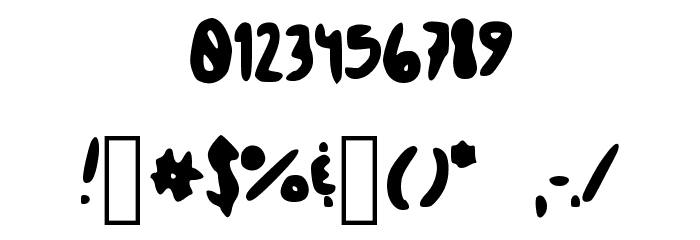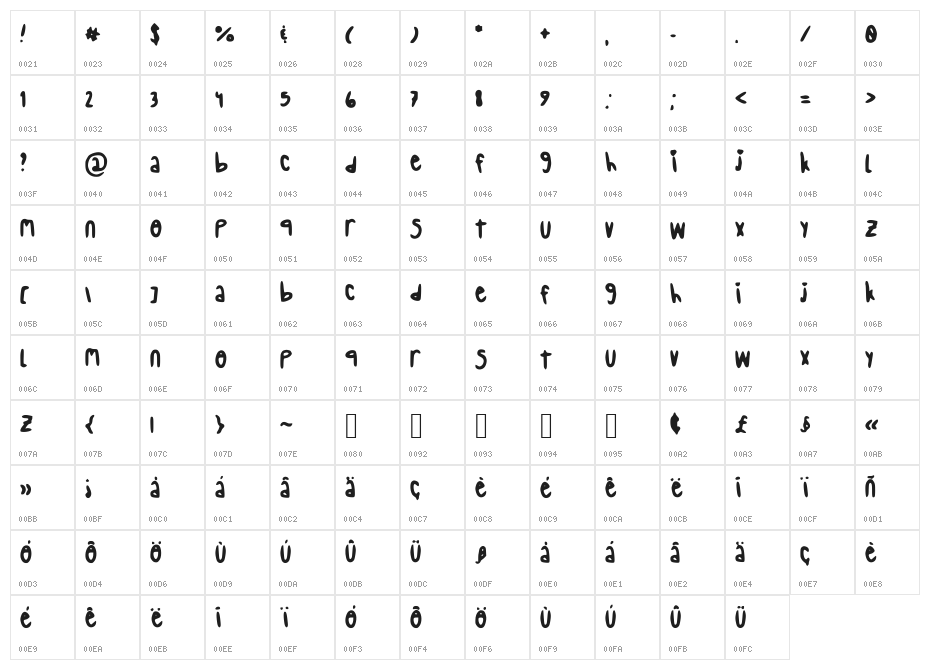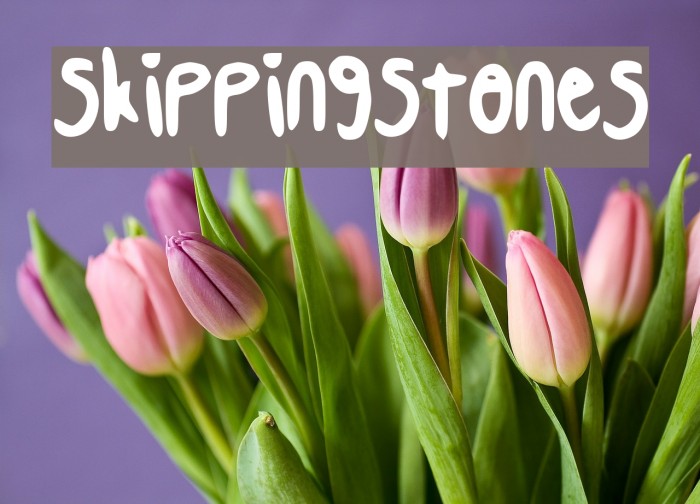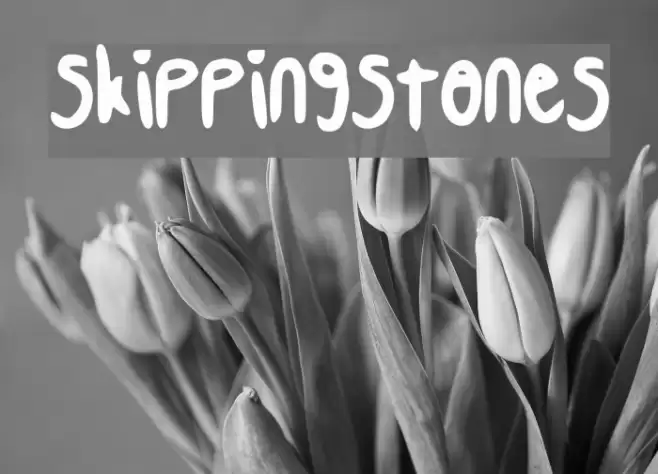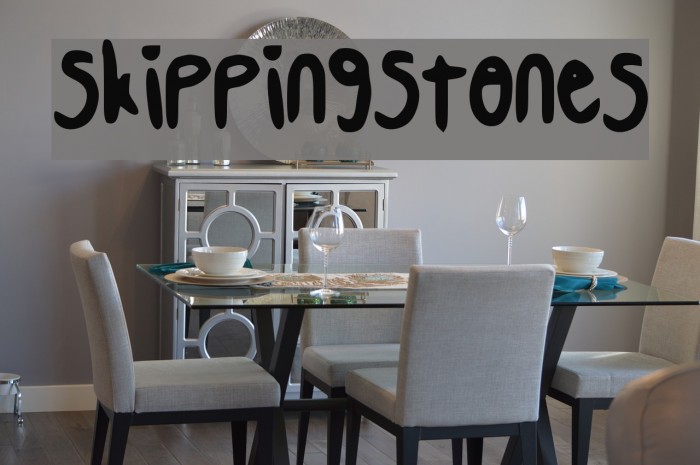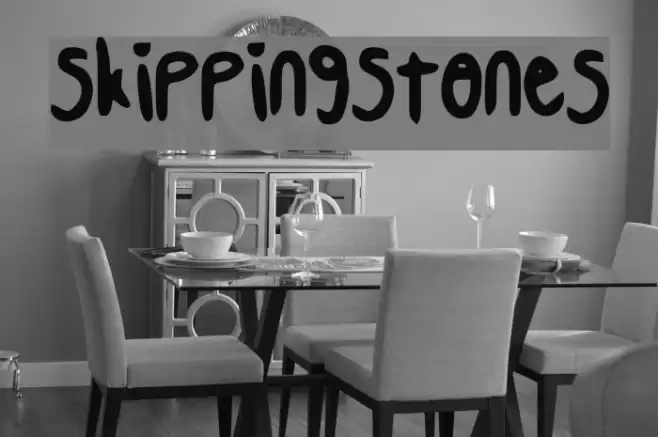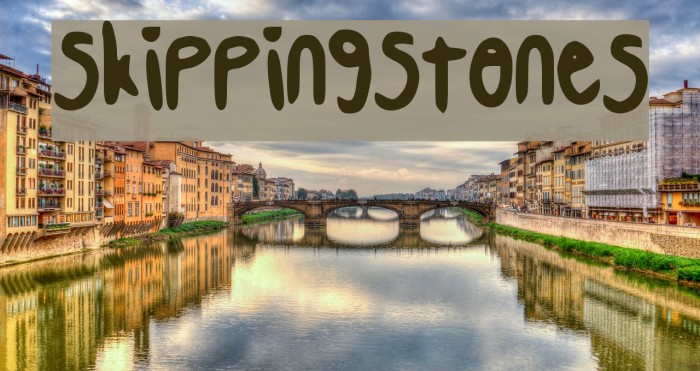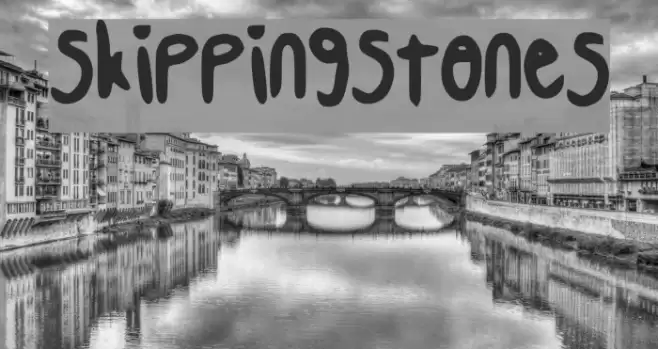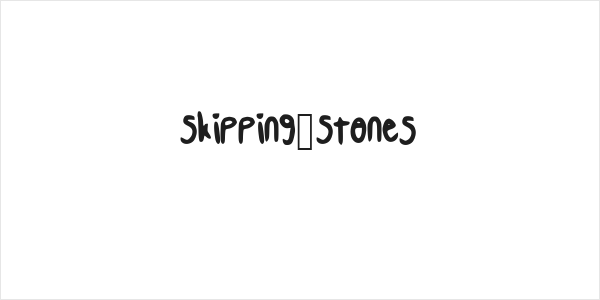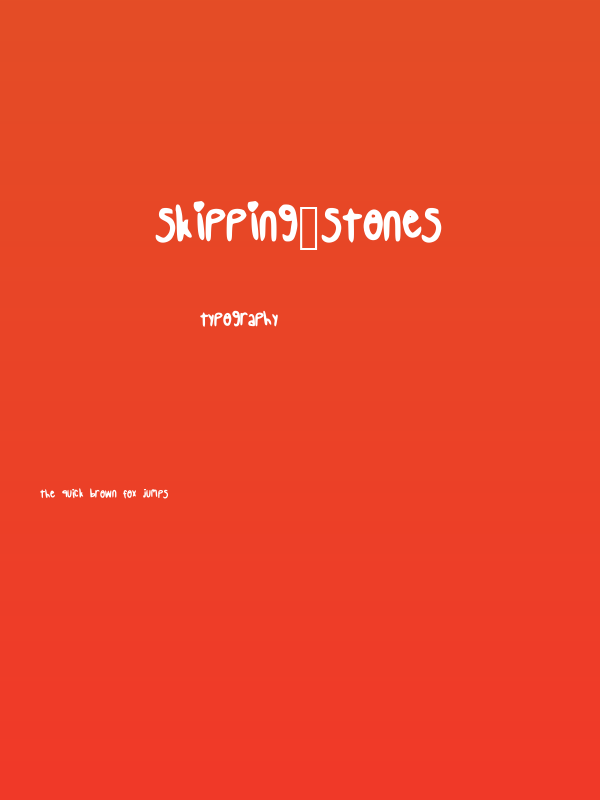
Skipping_Stones Font
Skipping_Stones Description
This playful and whimsical font features a hand-drawn style with irregular, rounded shapes that give it a casual and friendly appearance. The letters are bold and slightly uneven, creating a sense of movement and energy. The uppercase and lowercase characters maintain a consistent style, with a slightly exaggerated, cartoonish quality. The numbers and special characters follow the same playful design, making the font versatile for creative projects. Its unique style is perfect for capturing attention and adding a fun, informal touch to any design.